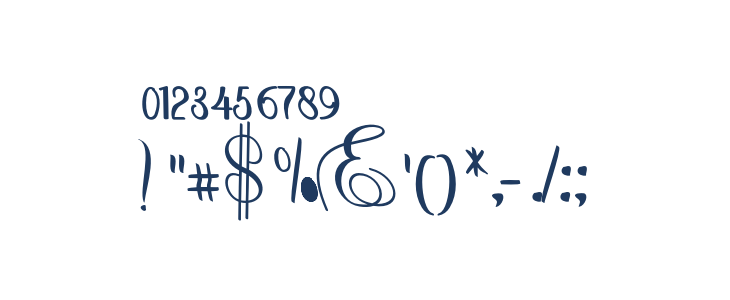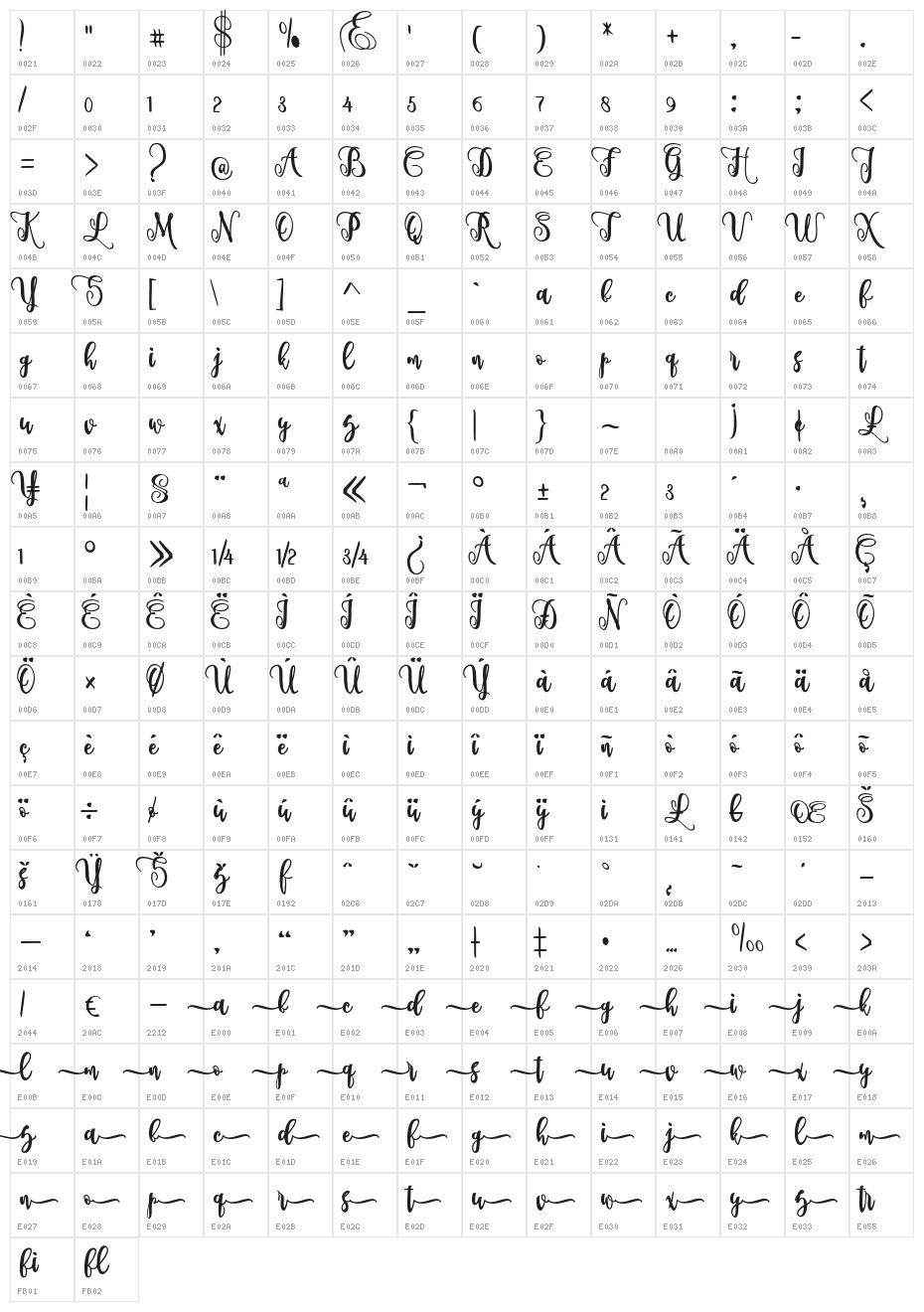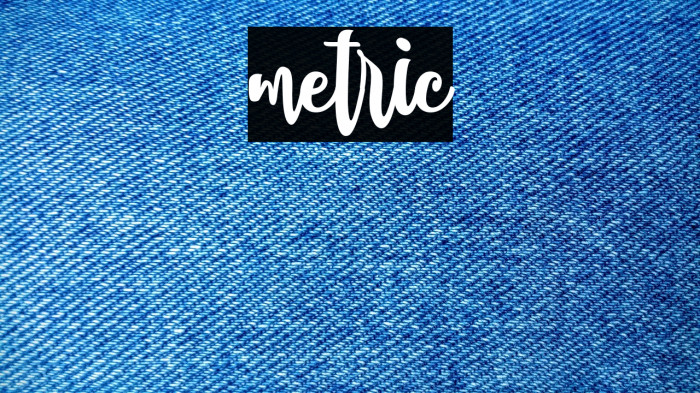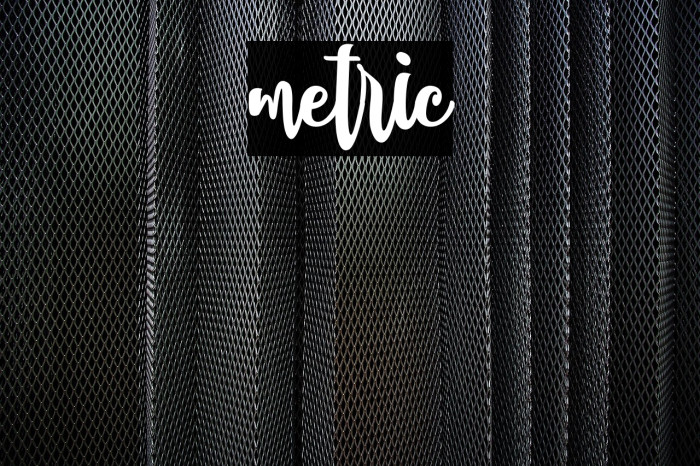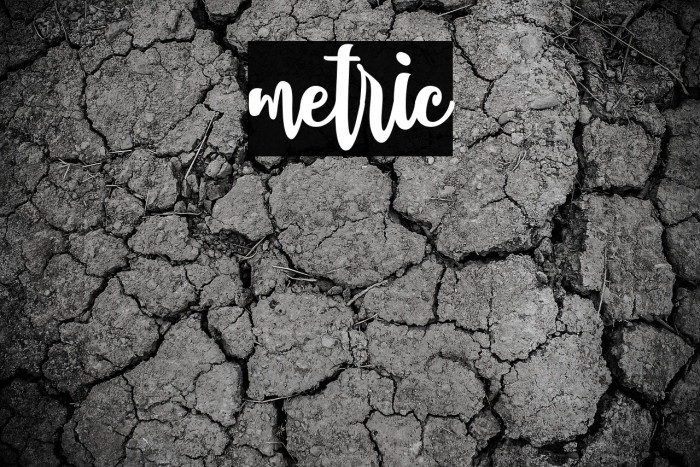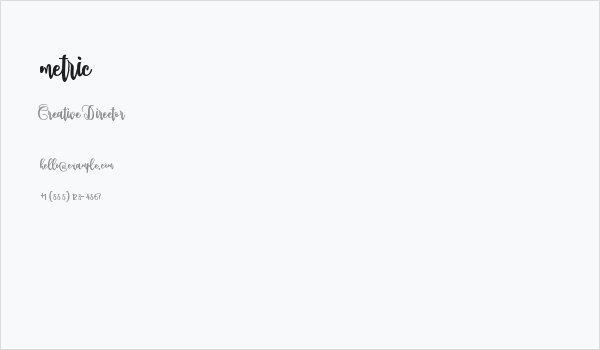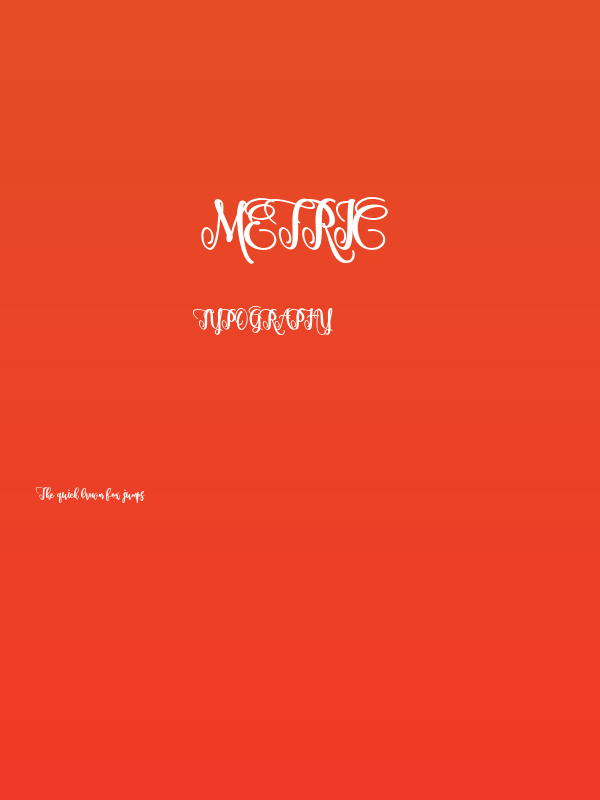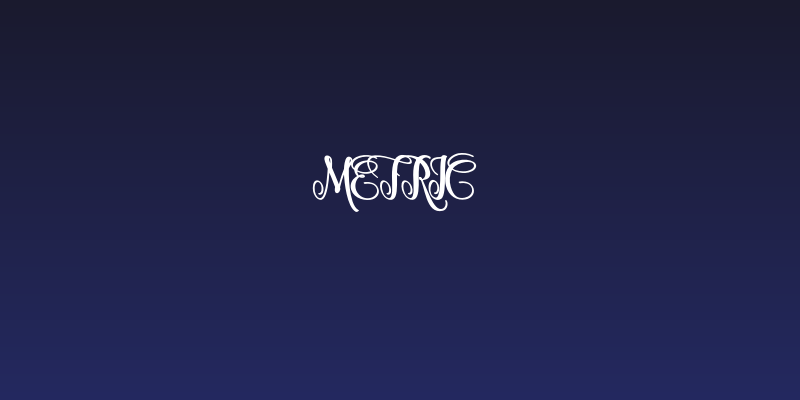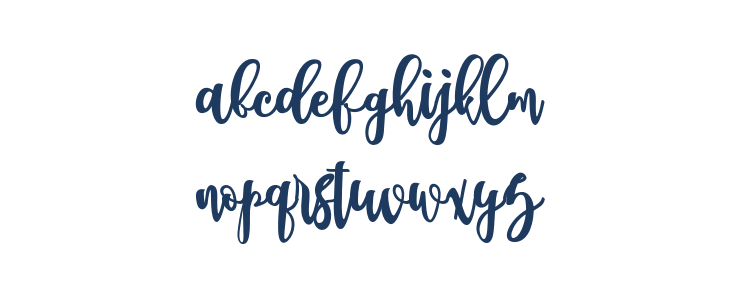
metric Font
metric Description
This font features an elegant and decorative script style with intricate swirls and loops, giving it a sophisticated and artistic appearance. The uppercase letters are particularly ornate, with each character exhibiting unique flourishes that add a sense of movement and grace. The lowercase letters maintain a consistent flow, complementing the uppercase with a slightly more restrained yet still decorative style. The numerals are bold and clear, maintaining the overall aesthetic with subtle embellishments. Special characters are creatively designed, fitting seamlessly into the font's artistic theme. This font is ideal for projects that require a touch of elegance and creativity, such as invitations, branding, and decorative headings.